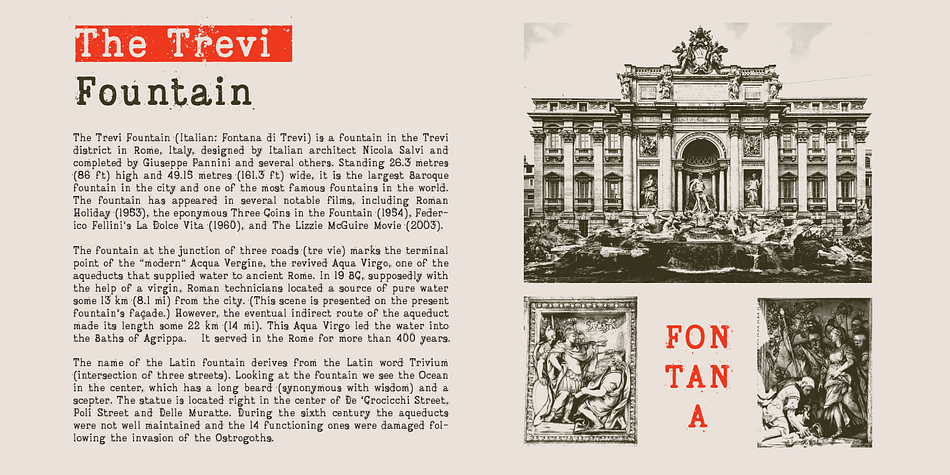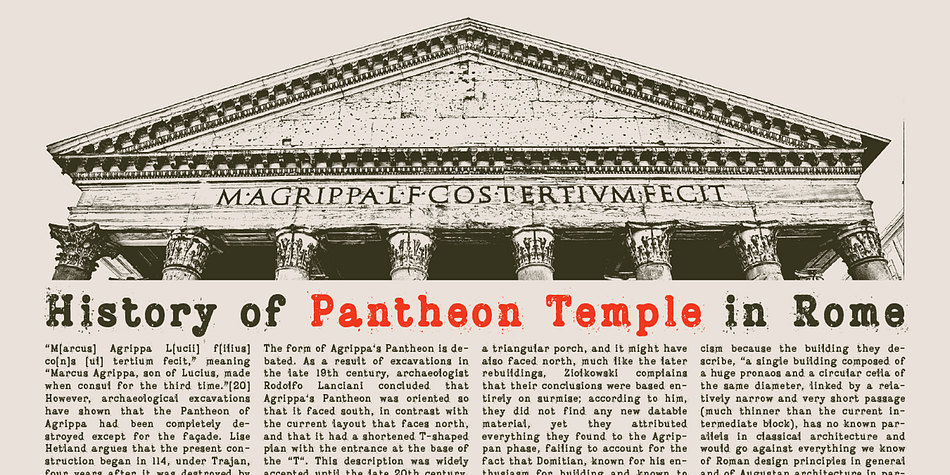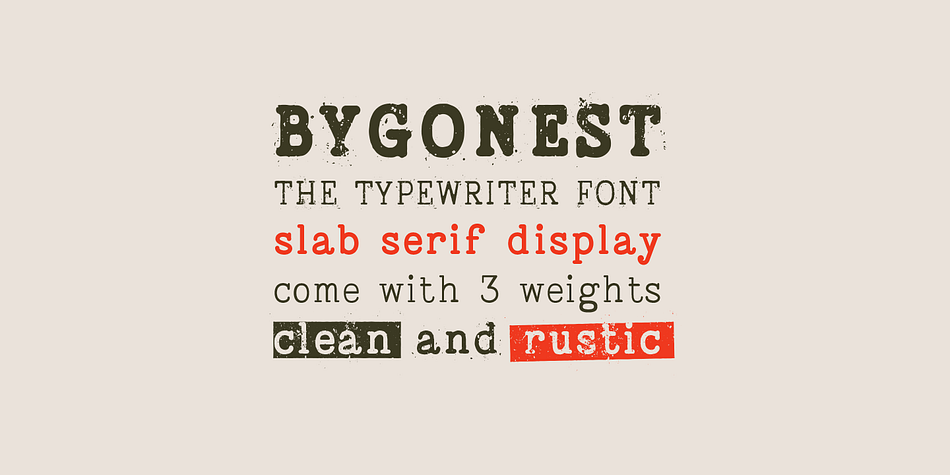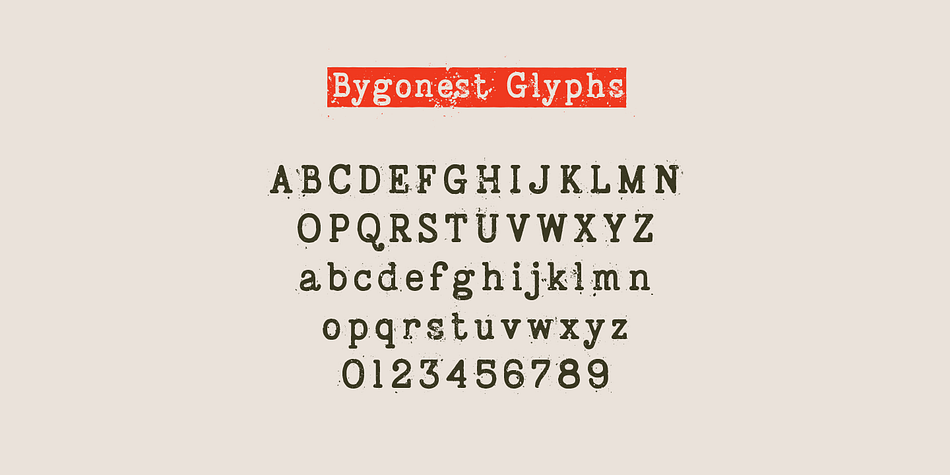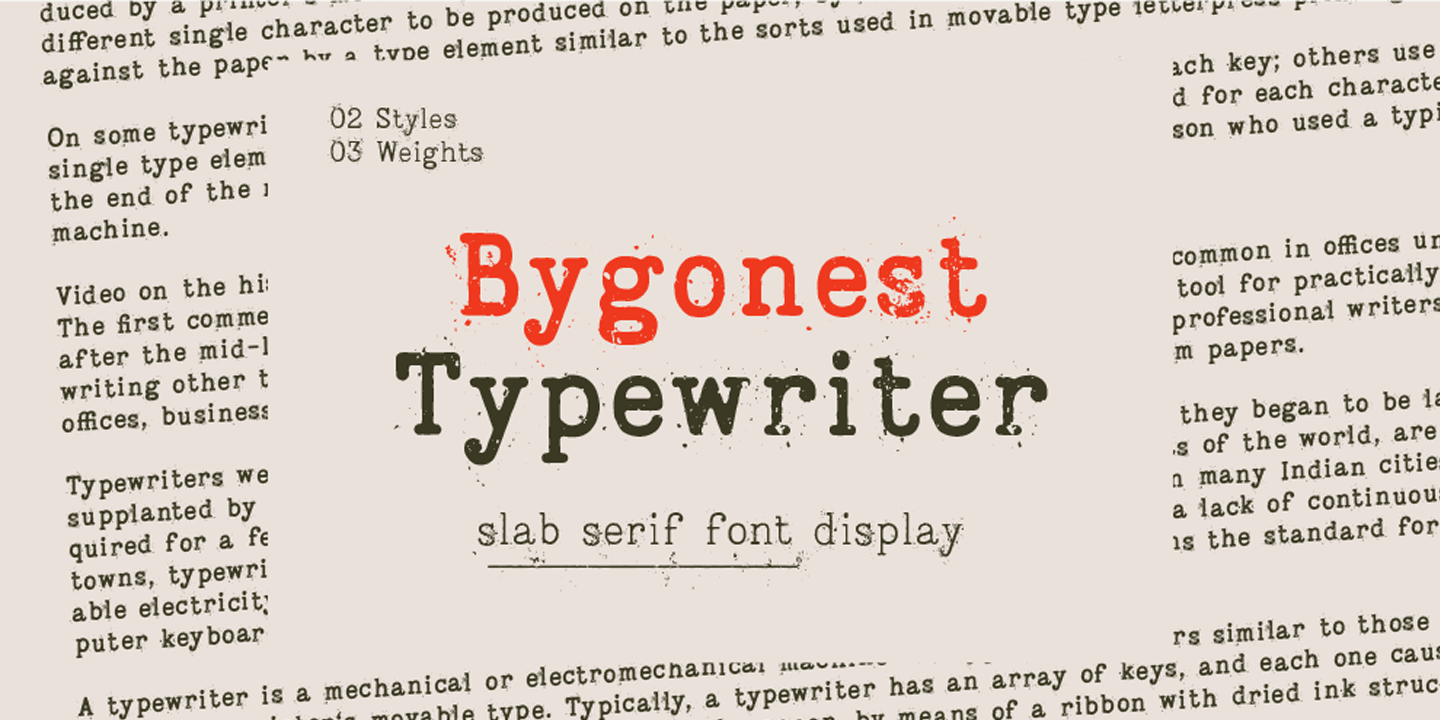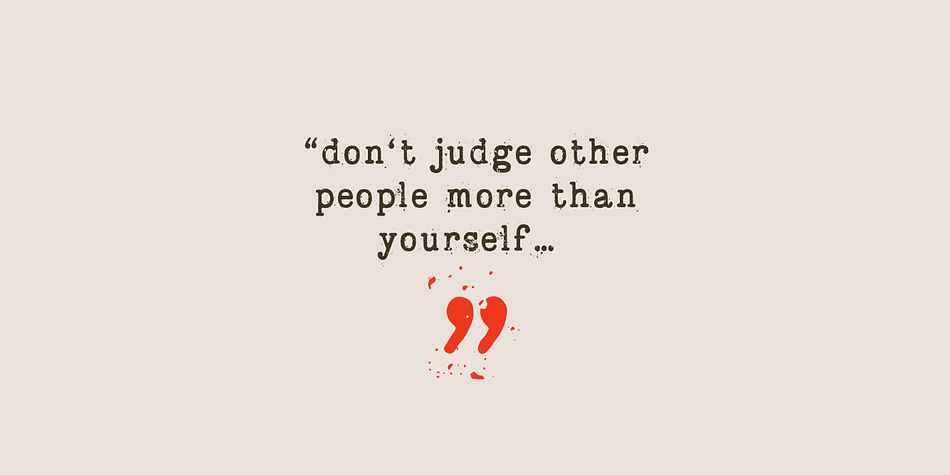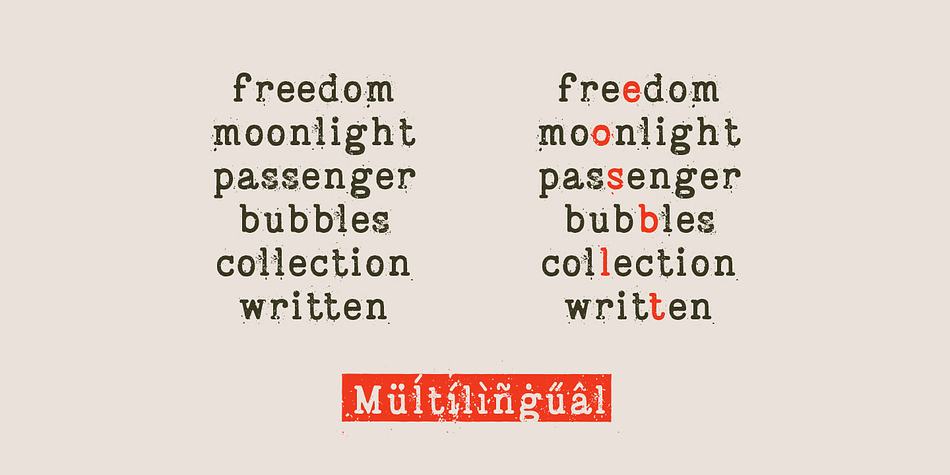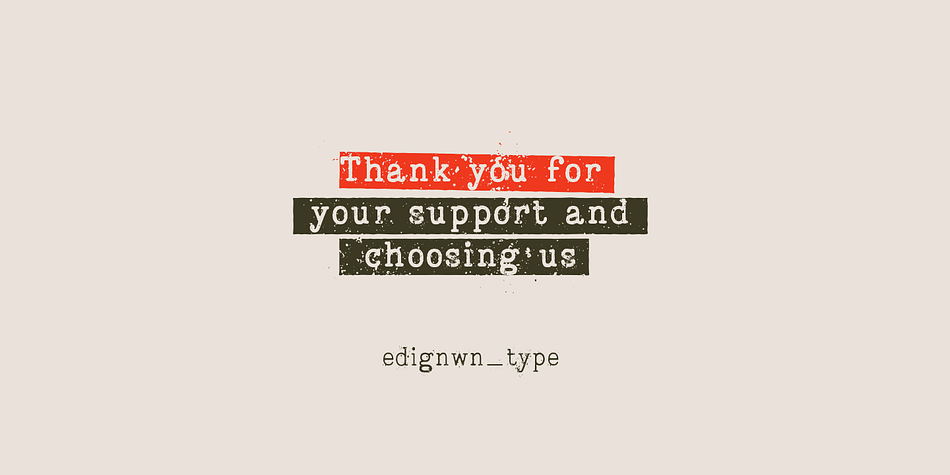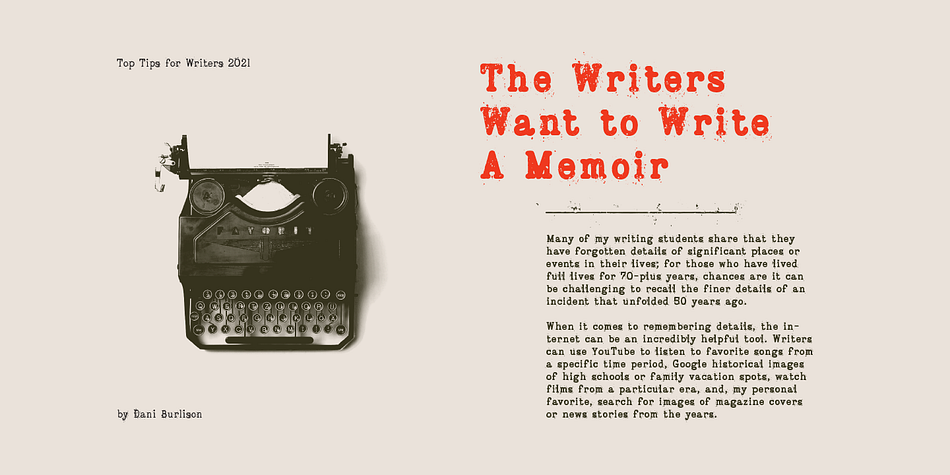
Bygonest
Designed by Edi Gunawan, Bygonest is a grunge and typewriter font family. This typeface has six styles and was published by Edignwn Type.
The font is called “Bygonest”, it is inspired by a realistic old typewriter. The font comes with 2 styles (clean and rustic) and 3 weights (thin, regular and bold). This font includes 1 sets alternates with different stamp texture, so you can combine the same 2 letters and not be boring. The font is unique because it has splash rustic in detail of glyph characters. Bygonest matches apply in some designs such as the newspaper, magazine, quotes, logotype, poster, label, packaging, branding, and more custom design.
Bygonest includes :
- 2 style typefaces (clean and rustic)
- 3 weights (thin, regular and bold)
- Uppercase, lowercase, numeral, symbol and punctuation
- Alternate feature
- Standard ligature
Foundry Edignwn Type
Styles Grunge, Typewriter
Designer Edi Gunawan